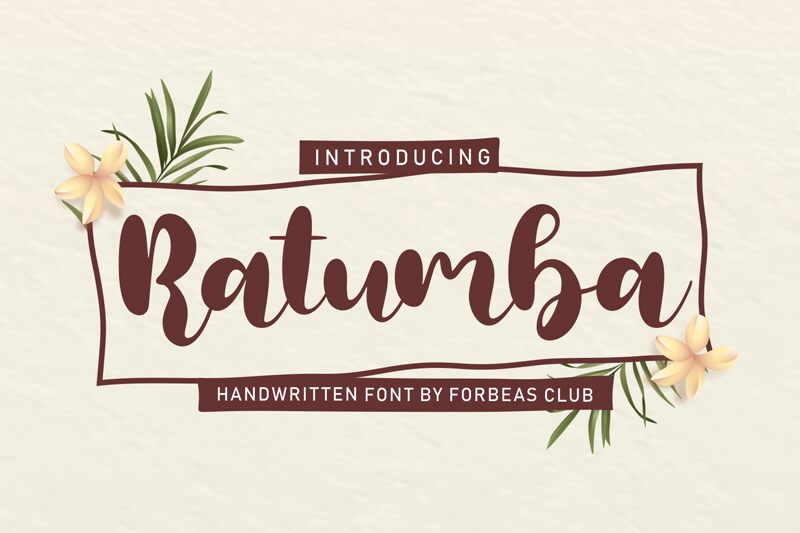
Ratumba, a smooth brush semi-bold font designed by Forberas Club is perfect for adding a touch of sophistication and elegance to your creative projects. Its smooth strokes and boldness make it an ideal choice for designs ranging from wedding invitations to restaurant menus. This versatile typeface is suitable for print, digital, and branding materials. Ratumba's unique style adds a personal touch to any project, whether it's a logo design or social media graphics. With its bold weight and flowing lines, this font will make your text stand out in any setting.